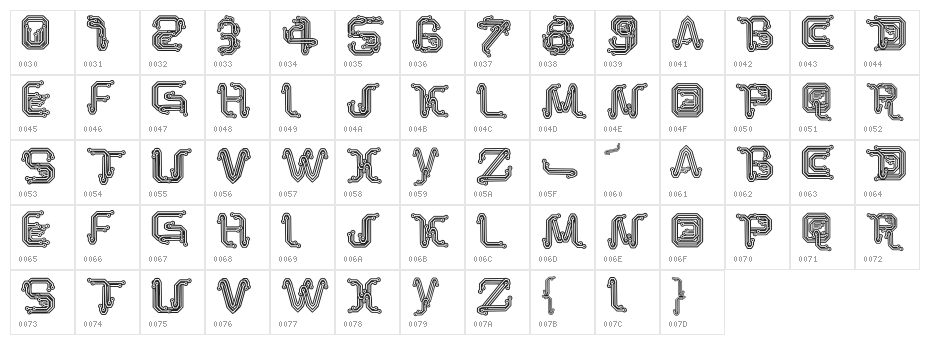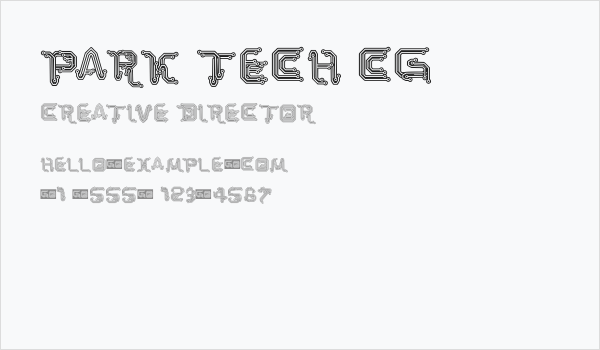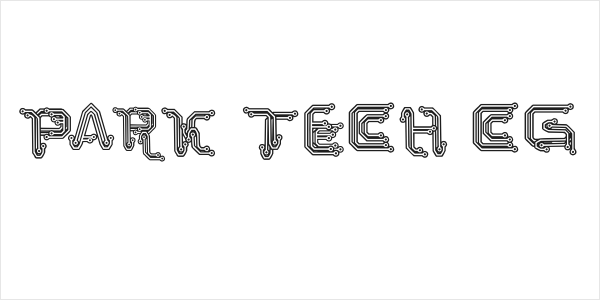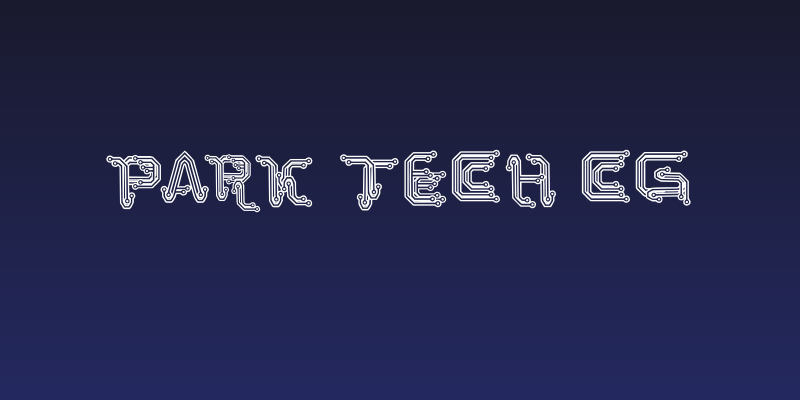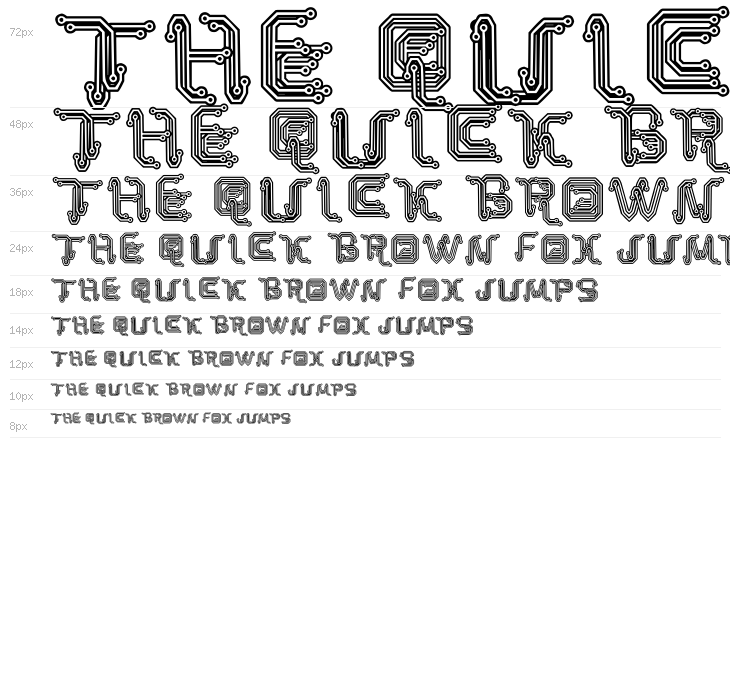
Park Tech CG Font
Park Tech CG Description
This font features a unique design that mimics the intricate patterns of a circuit board. Each character is composed of lines and nodes that resemble electronic pathways, giving it a distinctly technological and futuristic appearance. The uppercase and lowercase letters maintain a consistent style, with rounded edges and detailed line work that enhances the digital aesthetic. Numbers and special characters follow the same design principles, ensuring uniformity across all glyphs. This font is ideal for projects that require a modern, tech-inspired look.
| Proposed Projects | Ideal for technology branding, digital art projects, sci-fi themed designs, and tech-related event posters. |